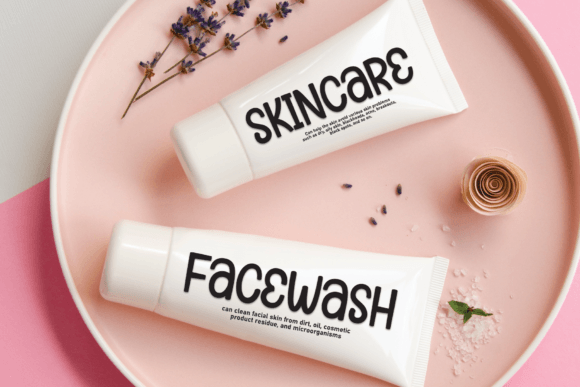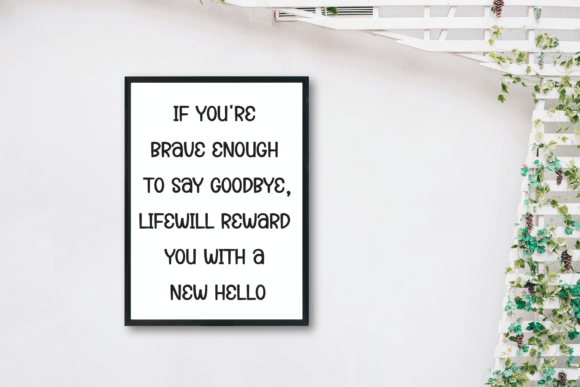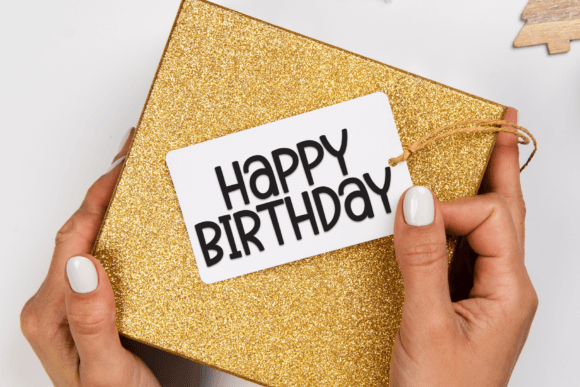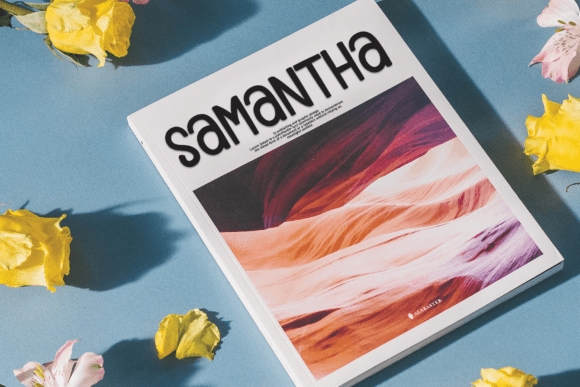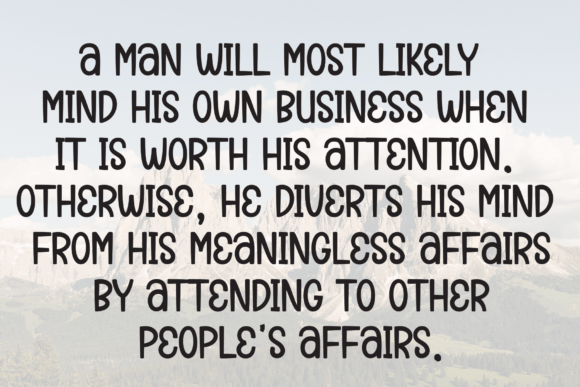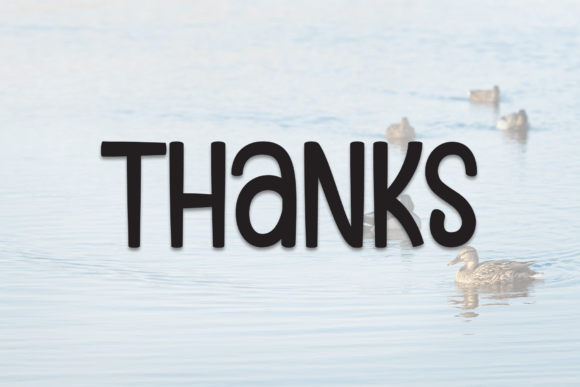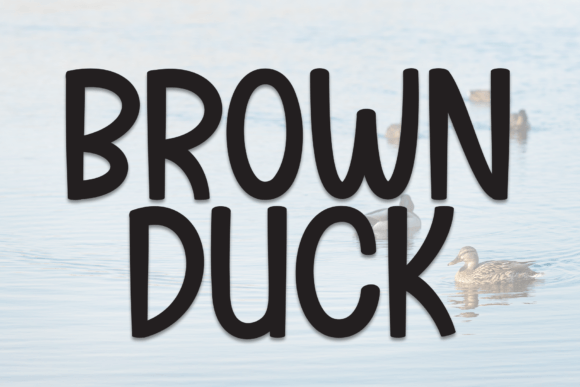
Brown Duck Font: Add a Sweet and Friendly Touch to Your Designs
Brown Duck is a delightful handwritten font that can add a fun and playful touch to any design project. With its sweet and friendly vibe, this font is perfect for creating wedding invitations, greeting cards, and other designs that require a personal and whimsical feel. In this article, we’ll explore the features and benefits of Brown Duck Font, and how it can elevate your designs to the next level.
What is Brown Duck Font?
Brown Duck Font is a handwritten font designed to bring a sense of warmth and friendliness to your designs. Its unique and charming style makes it an excellent choice for a variety of projects, from wedding invitations and cards to posters, flyers, and more. This font is carefully crafted to provide a smooth and flowing writing experience, making it easy to read and understand.
Key Features of Brown Duck Font
• Sweet and Friendly Style: Brown Duck Font boasts a sweet and friendly style that can add a personal touch to your designs.
• Handwritten Look: This font has a beautiful handwritten look that makes it perfect for creating unique and personalized designs.
• Cute and Fun: Brown Duck Font is ideal for designs that require a fun and playful touch, such as wedding invitations, birthday cards, and more.
• Easy to Read: The font is carefully designed to be easy to read, making it perfect for body text and headings.
Benefits of Using Brown Duck Font
Brown Duck Font offers several benefits that make it an excellent choice for designers and crafters. Some of the benefits include:
• Unique and Personalized Designs: With Brown Duck Font, you can create unique and personalized designs that stand out from the crowd.
• Versatile: Brown Duck Font can be used for a variety of projects, from wedding invitations and cards to posters, flyers, and more.
• High-Quality: This font is designed to provide high-quality results, making it perfect for professional designers and crafters.
Brown Duck Font is a sweet and friendly handwritten font that can add a fun and playful touch to any design project. With its unique and charming style, this font is perfect for creating wedding invitations, greeting cards, and other designs that require a personal and whimsical feel. Whether you’re a designer or crafter, Brown Duck Font is an excellent choice for anyone looking to add a personal touch to their designs.